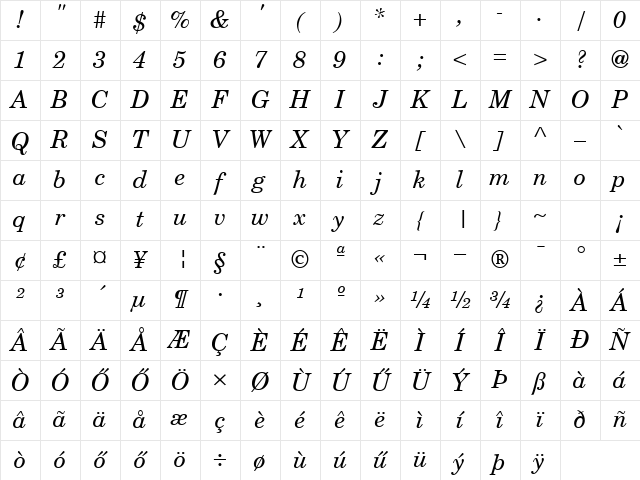
HNewCentury Italic Free Font
Design Context for HNewCentury
HNewCentury is a composed and adaptable typeface that performs quietly and consistently across a wide range of design contexts. The slanted form adds forward momentum and visual energy.